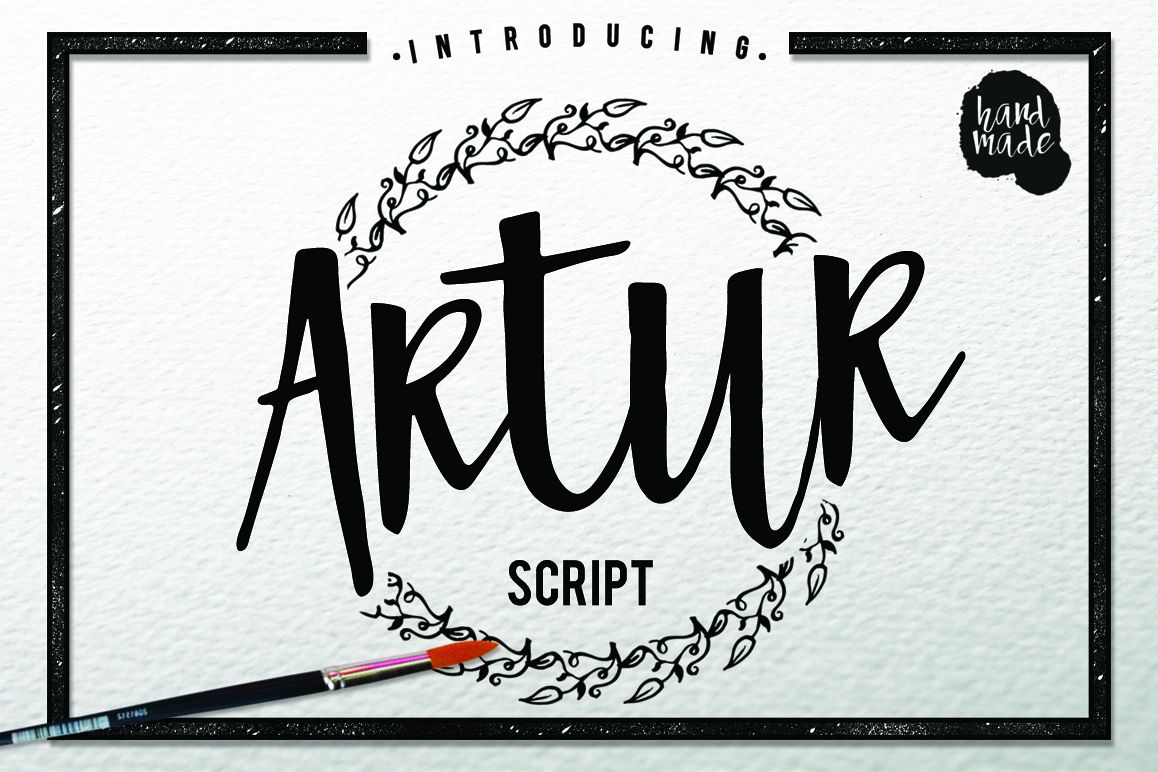
Artur Script package is perfect for making design: posters, a variety of quotes, header, logo design, blog headers, all kinds of covers, T-shirts, mugs, etc.